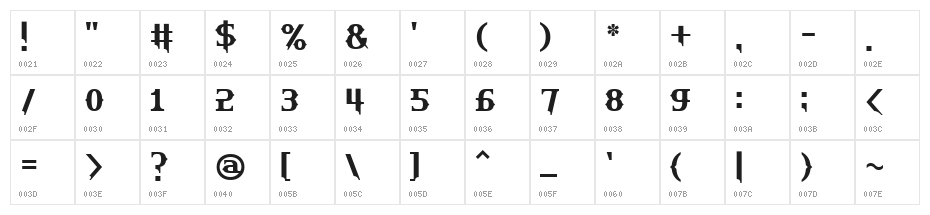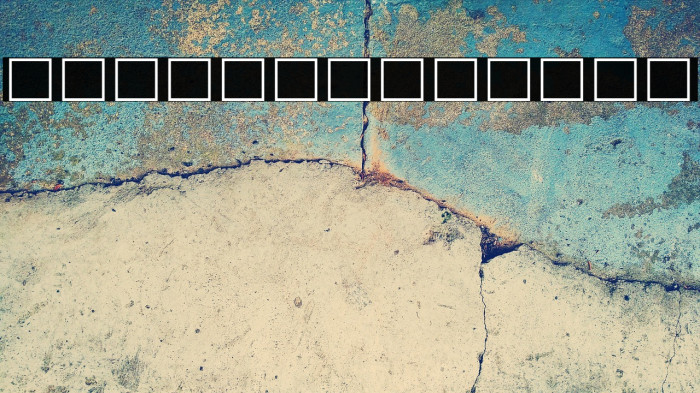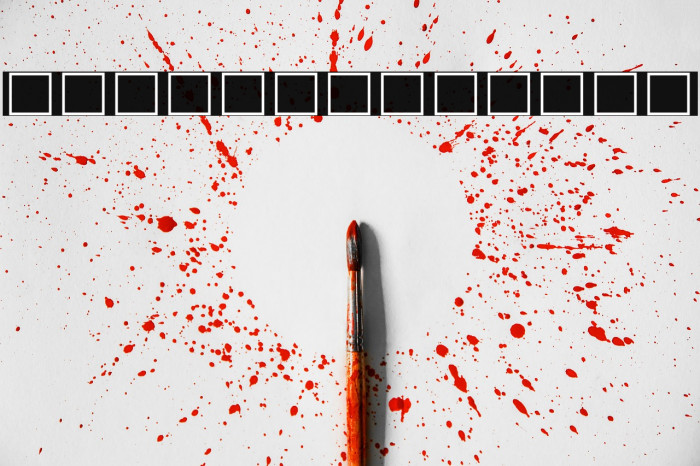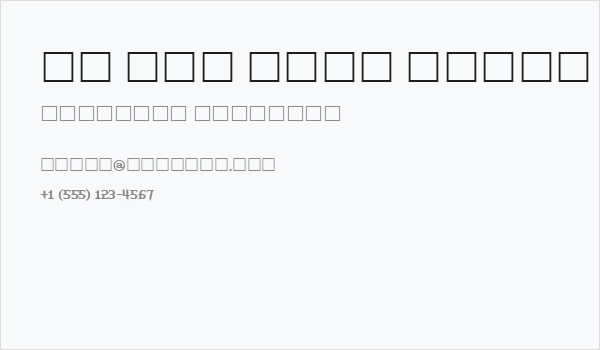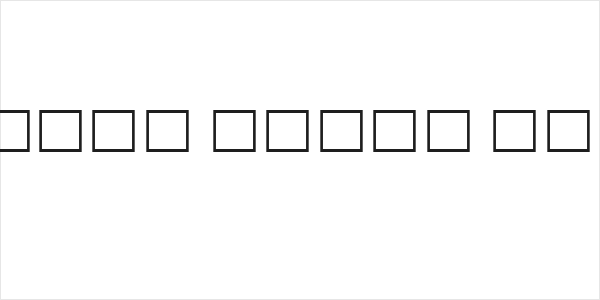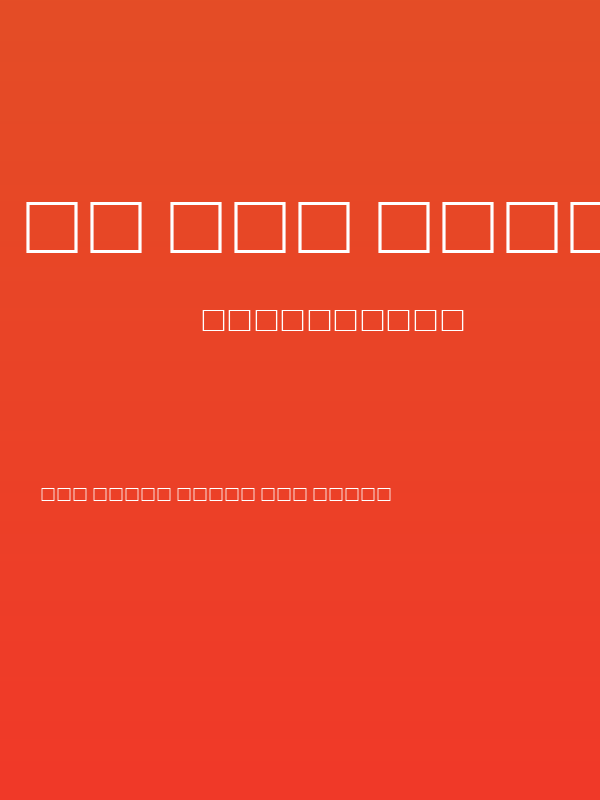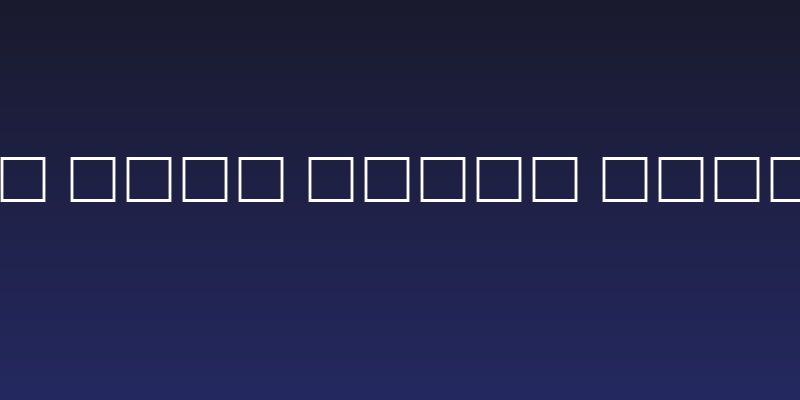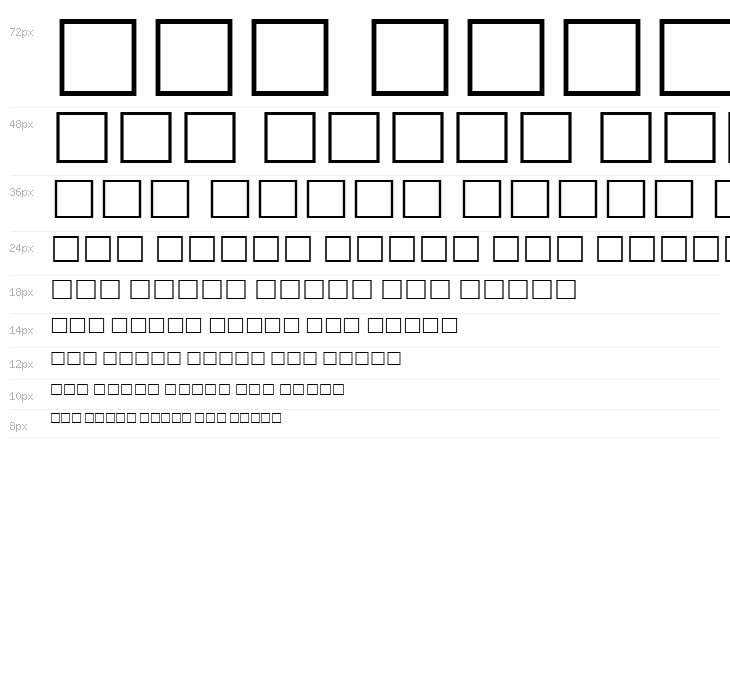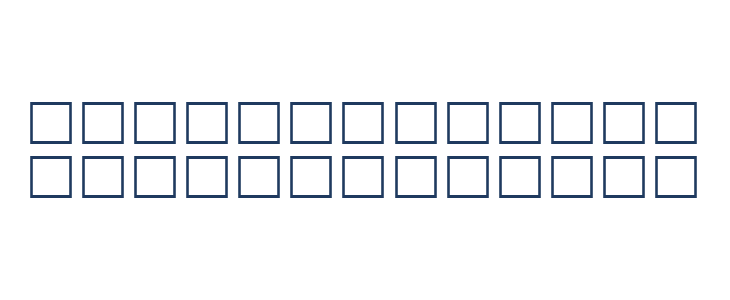
HU The Game Greek SemiBold Font
HU The Game Greek SemiBold Description
This font features a bold and impactful design, characterized by thick, heavy strokes and sharp, angular serifs. The numbers and special characters maintain a consistent weight, contributing to a cohesive and robust appearance. The style is reminiscent of classic sports or collegiate typefaces, offering a sense of strength and authority. The characters are well-defined with a high contrast between thick and thin strokes, making them highly legible even at smaller sizes. The overall aesthetic is both traditional and assertive, suitable for making a strong visual statement.
| Proposed Projects | Ideal for sports branding, team logos, posters, and any project requiring a bold, impactful typeface. |